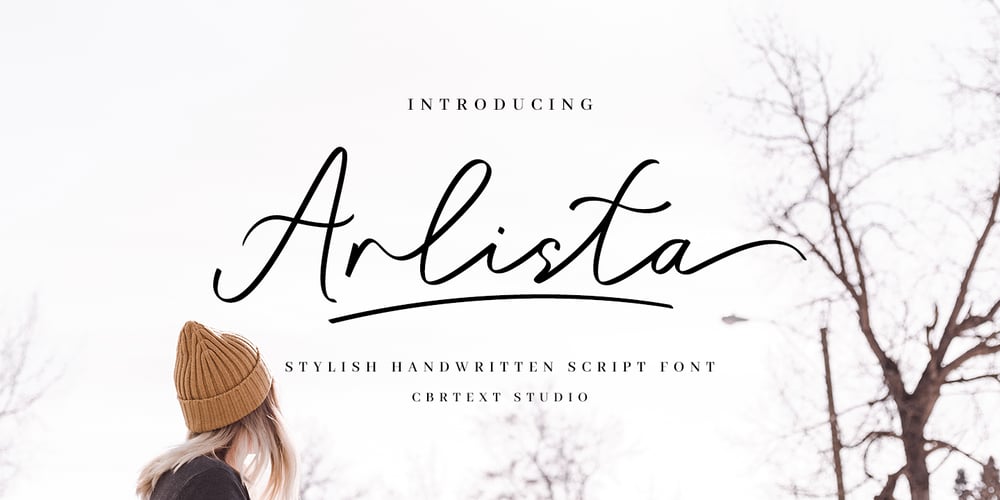
Arlista Font Family was designed by Muhammad Khoirul Amal and published by CBRTEXT Studio. Arlista contains 1 styles and family package options. Arlista is a stylish, classy and modern handwritten font with many alternative styles for your beautiful project.We make this font carefully so that each letter can be accessed well. Alternatives to the letters a-z, beautiful decoration, and the ligatures make your project more elegant and classy. Arlista also has multilingual support and is PUA encoded.Features : 350+ Glyphs Ligatures Alternates Simple installations Standard Uppercase and Lowercase Alphabet Numbers and Punctuation Swash Stylistic Set Open Type Features PUA Encoded Multi-lingual Support